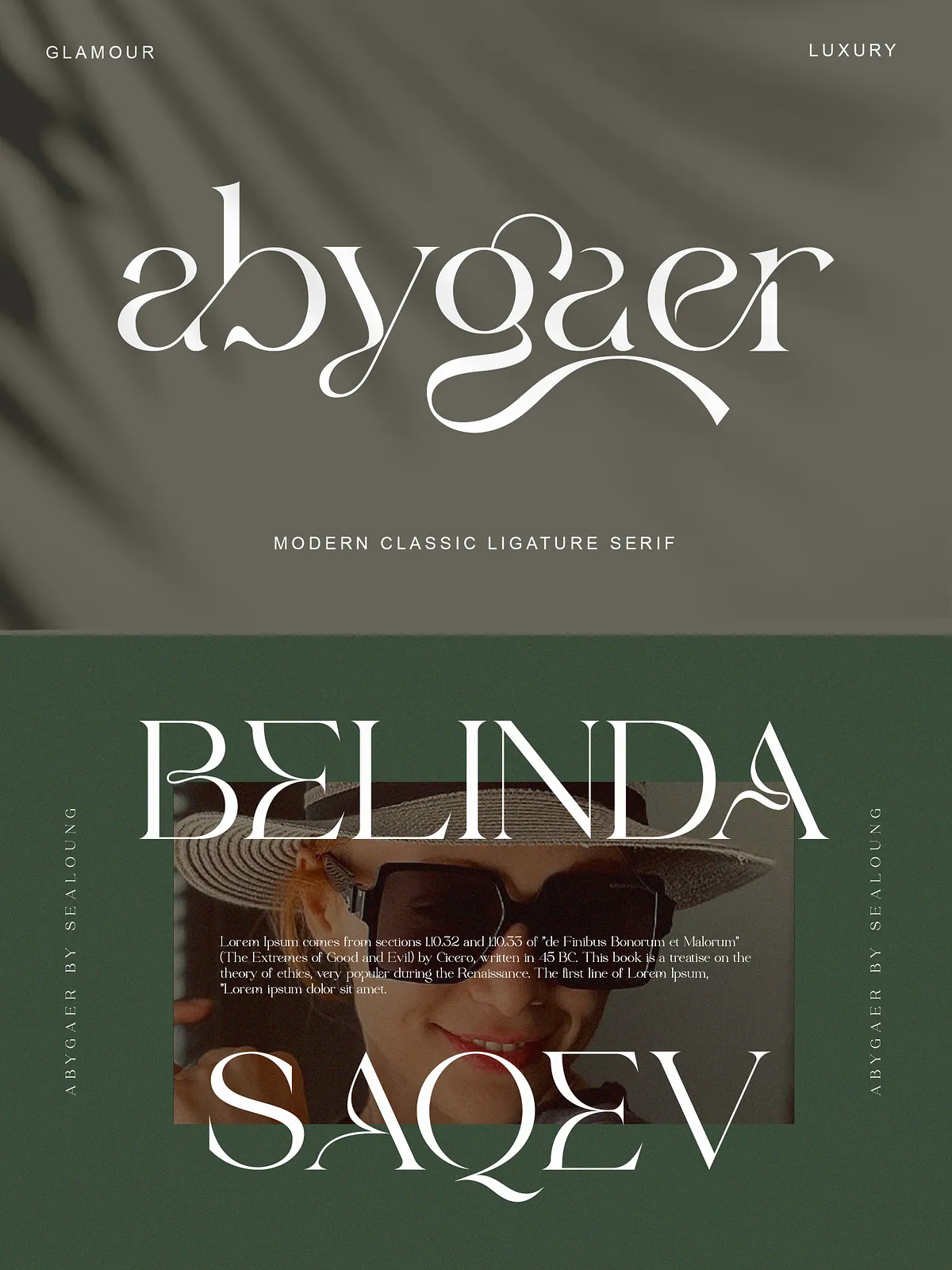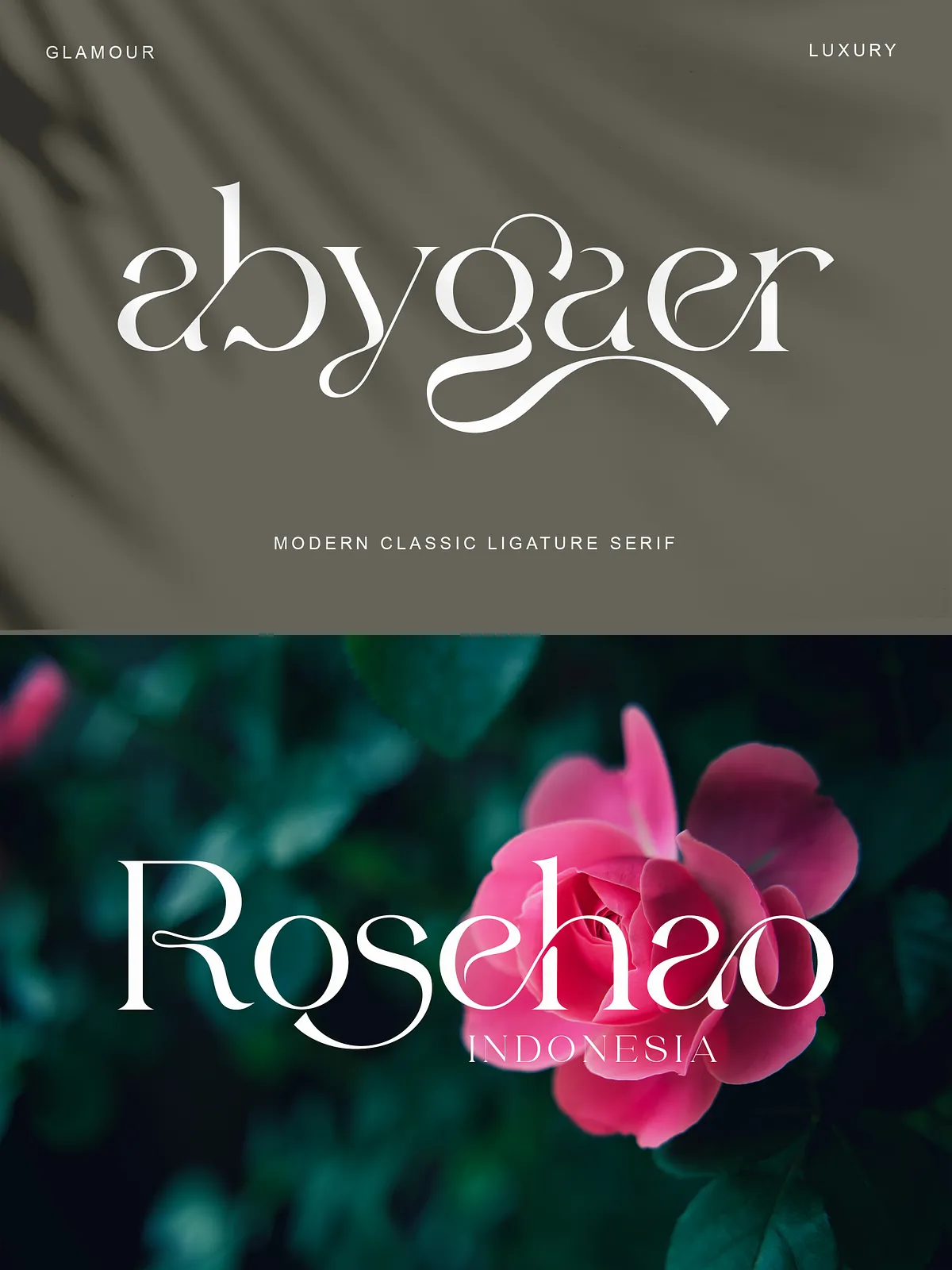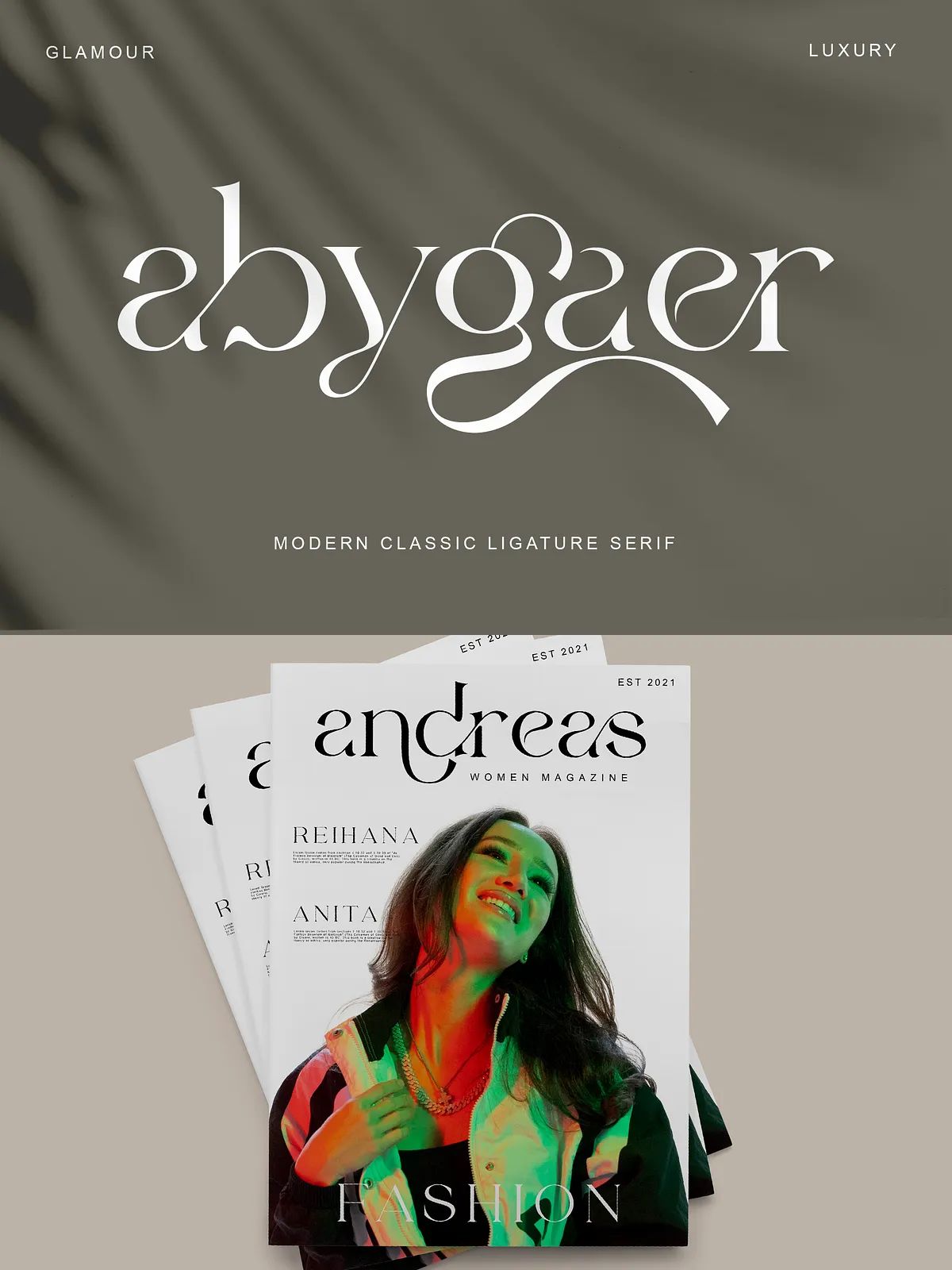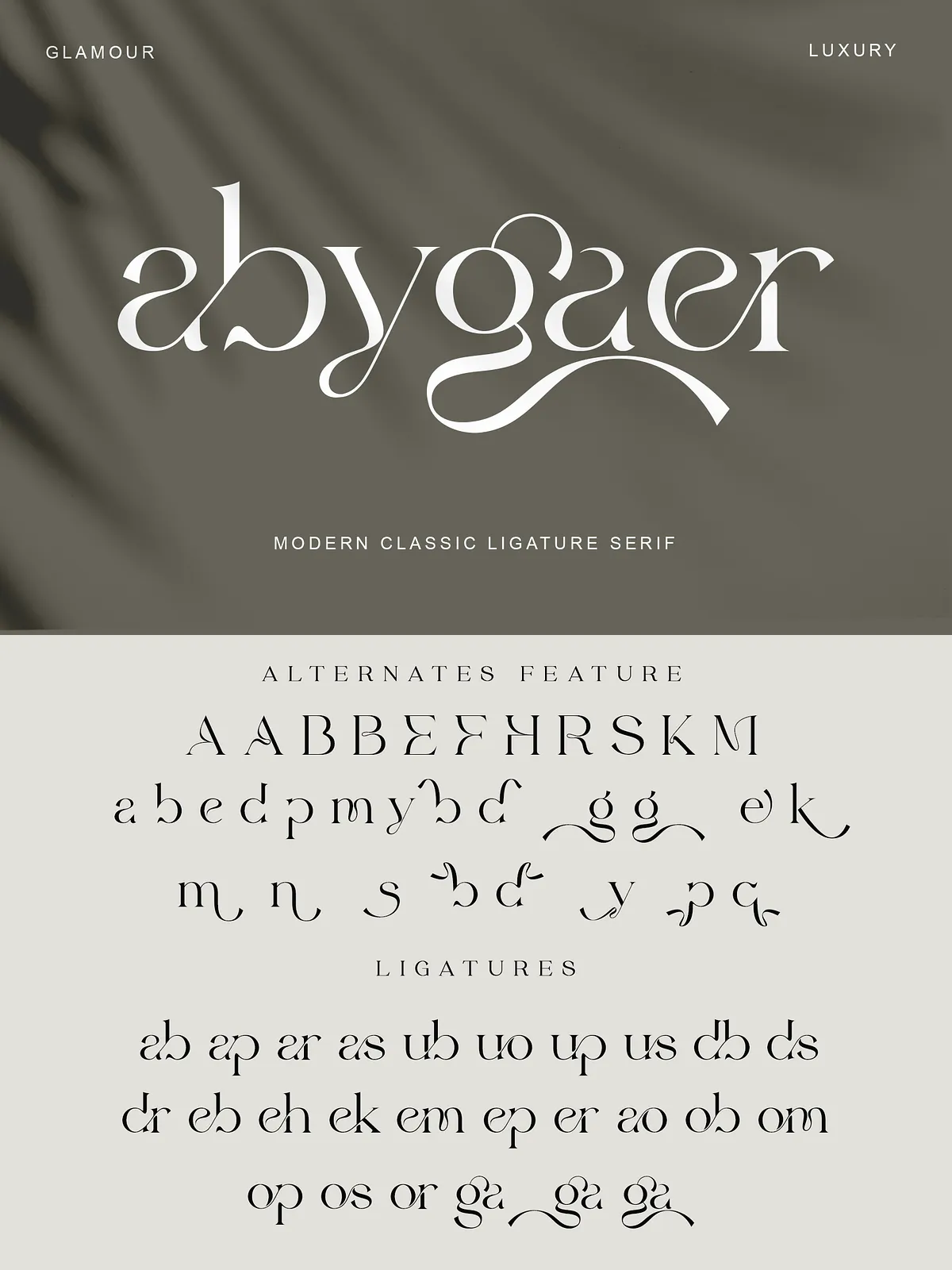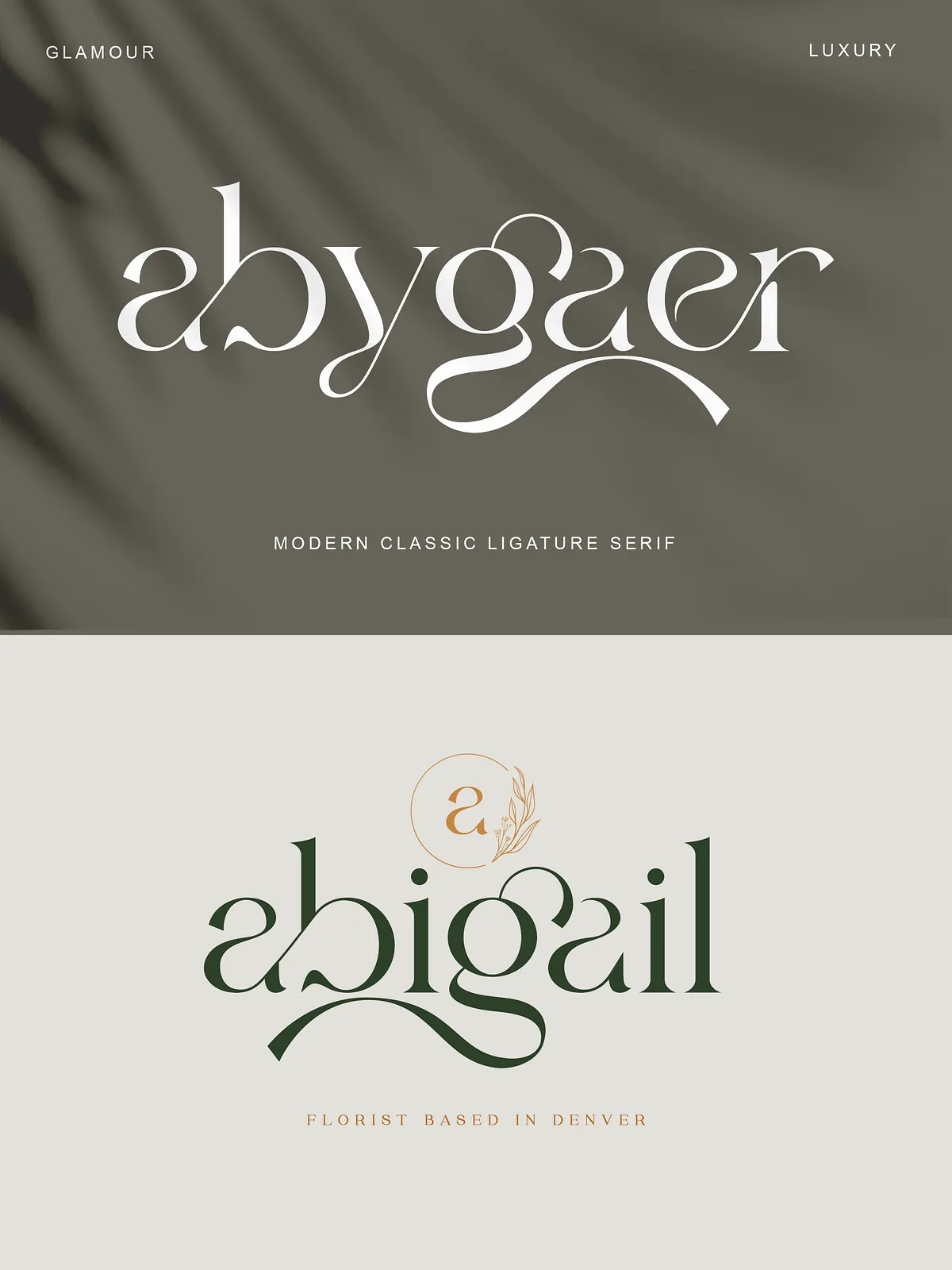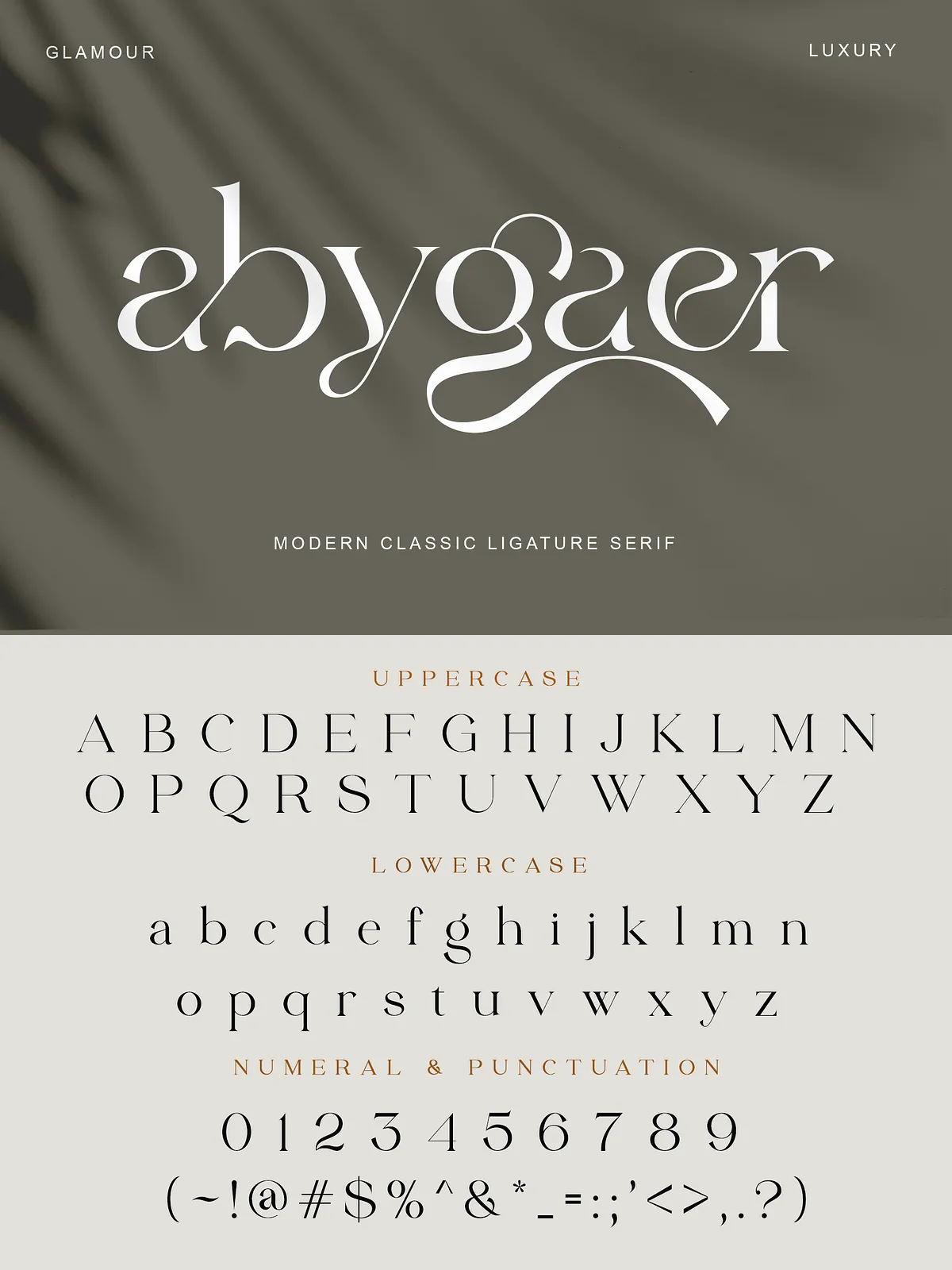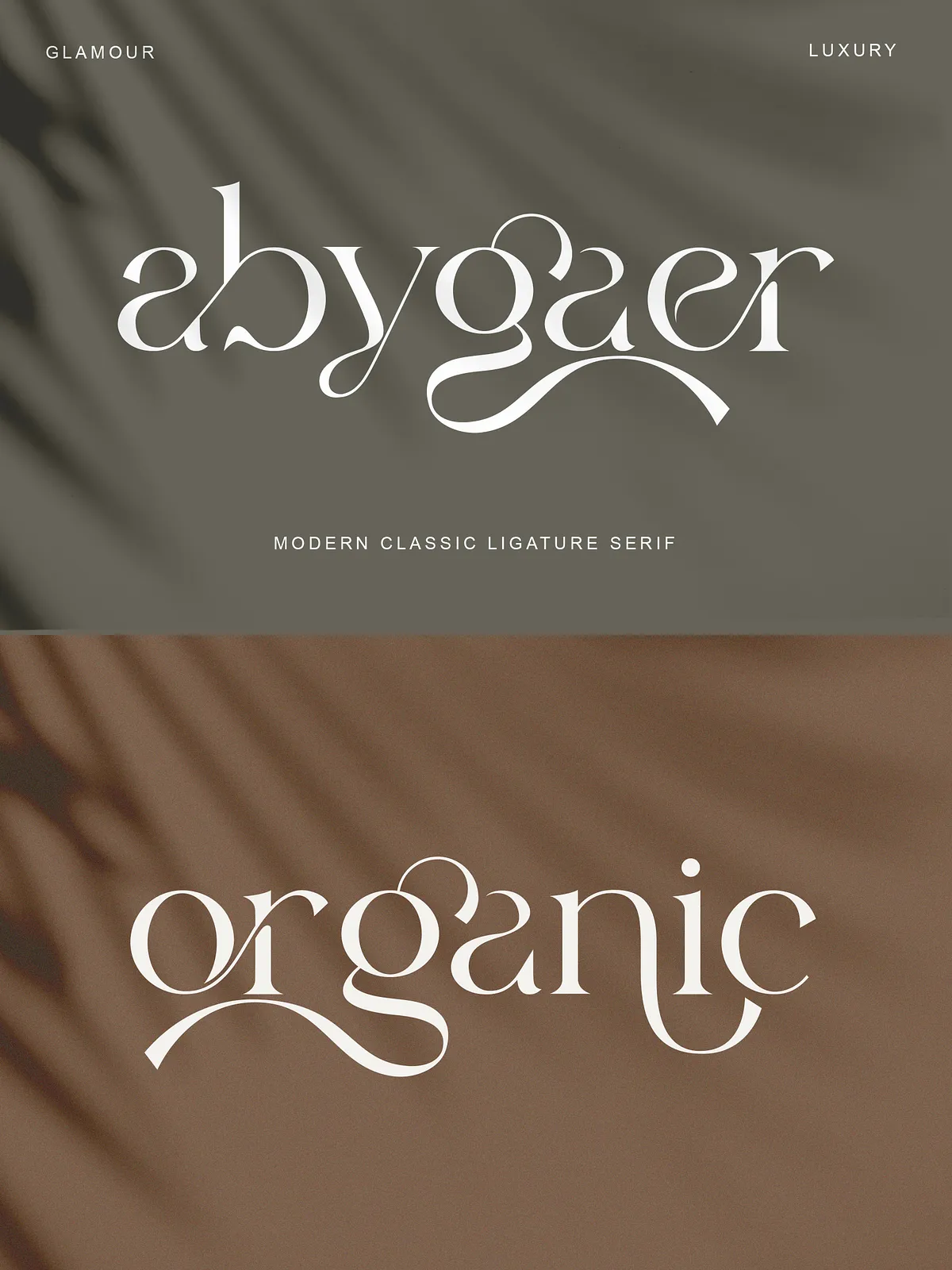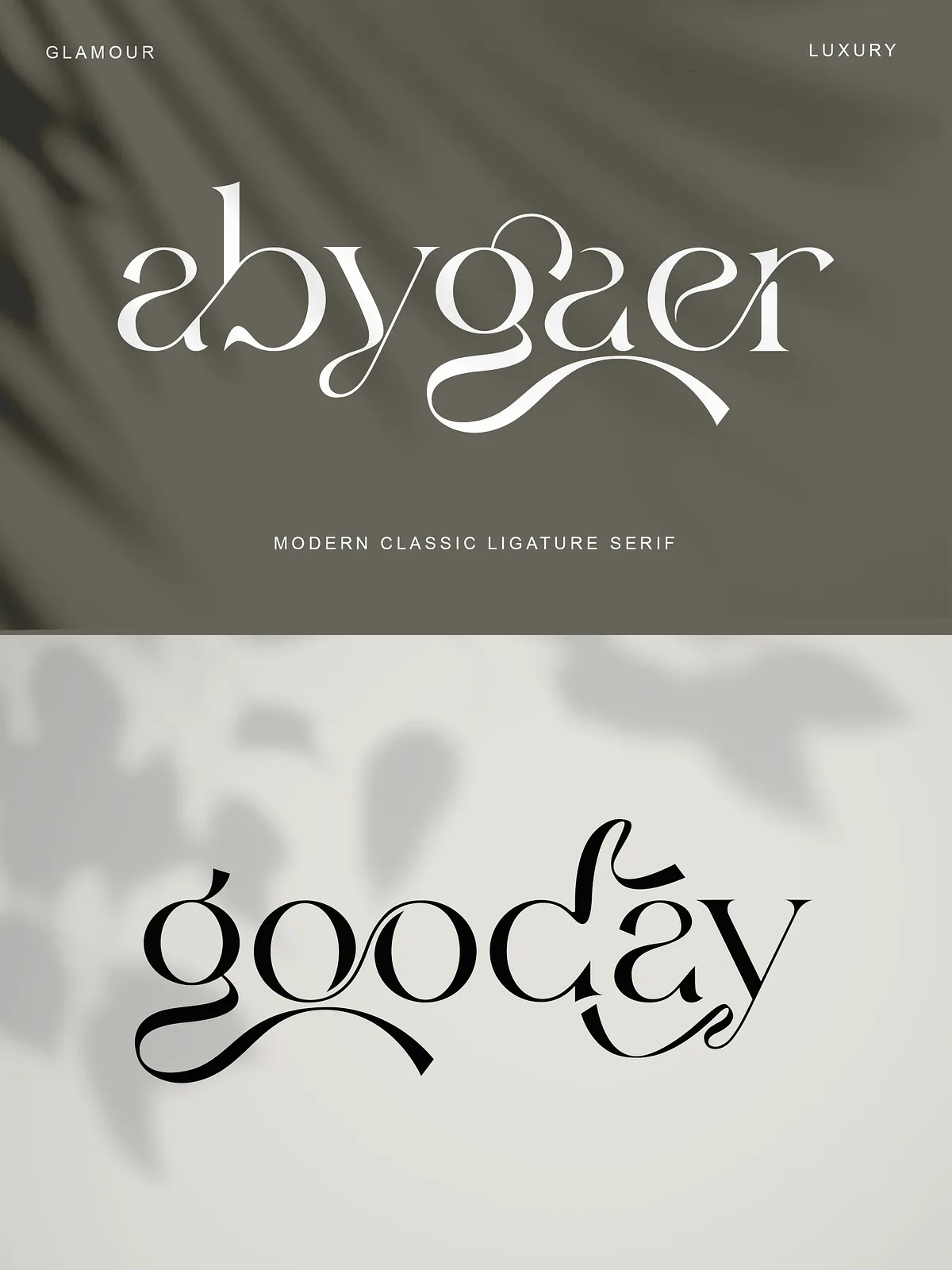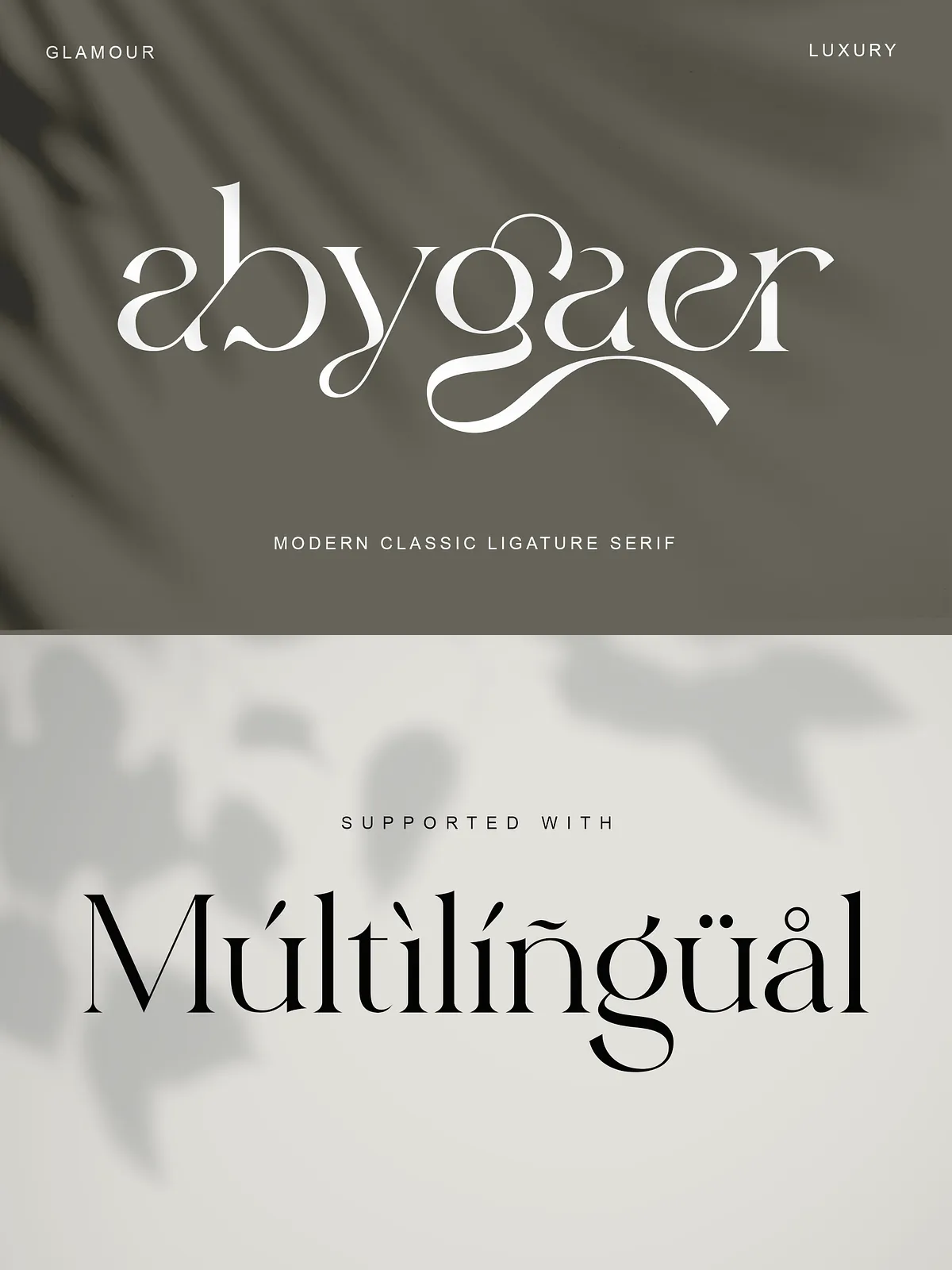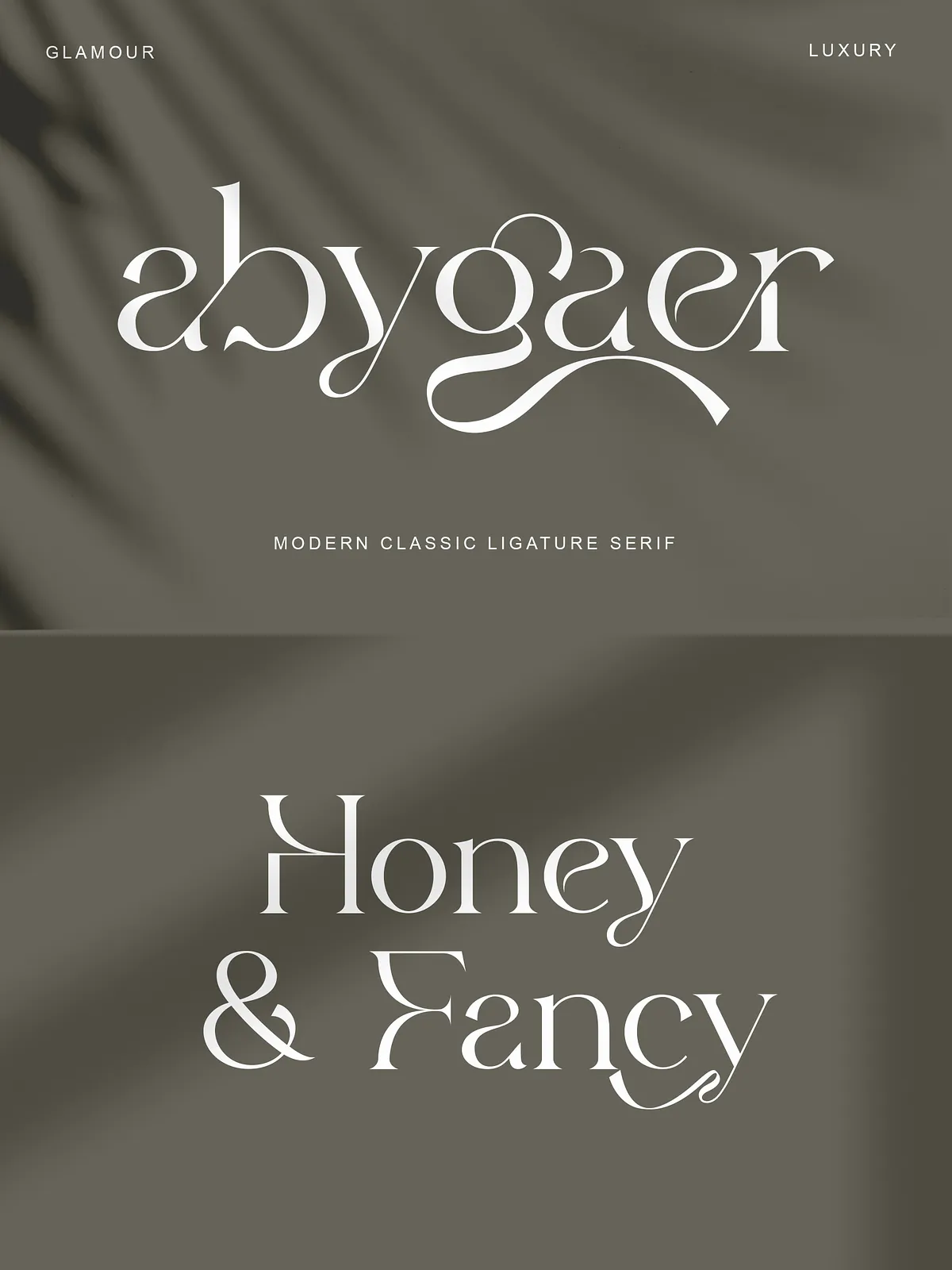
Transform your designs with Abygaer, a luxuriously expressive OpenType rich serif font where every letter seems to dance and twist in graceful harmony. More than just a typeface, Abygaer is a celebration of fluid, expressive design, crafted for creatives who demand both artistic flair and technical precision. Whether you’re designing a luxury brand identity, a high-end editorial spread, or an art book, Abygaer delivers unparalleled elegance and a unique sense of motion.
Unlock the Artistry: Powerful OpenType Features
Abygaer isn’t confined by convention. Its true magic lies in its advanced OpenType features, which empower you with a vast array of typographic possibilities. You can access a breathtaking selection of:
- Interwoven ligatures: Seamlessly merge characters for a look that feels natural, organic, and richly detailed.
- Stylish alternates: Replace standard glyphs with more ornate or unique forms to create visually distinctive text.
- Contextual alternates: Let the software automatically choose the best character variant based on surrounding letters for a more balanced, professional appearance.
- Swash characters: Enhance your headlines with dramatic flourishes that add a touch of sophistication and drama.
Comprehensive Glyph Set for Every Design Need
Abygaer is built for real-world versatility. It includes a full and robust set of glyphs, ensuring you have everything you need for any project:
- Complete uppercase and lowercase letterforms
- Standard and stylistic numerals
- Full punctuation set (including fractions, quotation marks, and em/dash)
- Advanced multilingual support for languages such as French, German, Spanish, Italian, Portuguese, Dutch, and more
- Multilingual symbols and special characters
- A full complement of ligatures and alternates
For a complete visual guide, refer to the provided preview image that showcases all available glyphs, allowing you to explore the full range of Abygaer’s stylistic depth before you even begin your project.